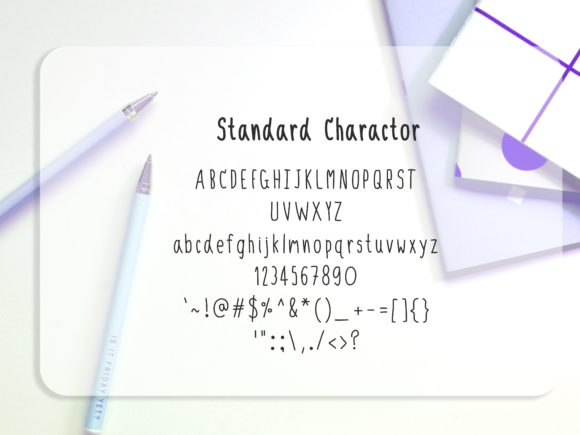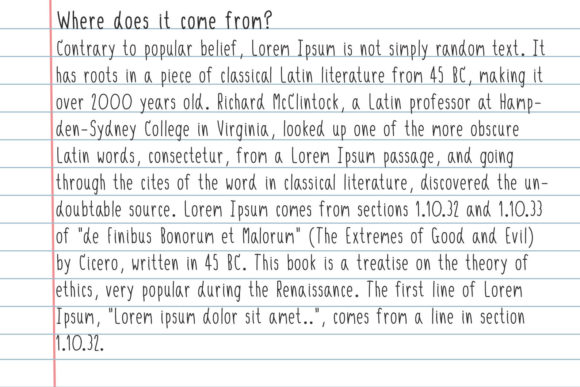
Introduction to Happy Tulip Font Font
Fonts play a crucial role in design, and the Happy Tulip Font font is a typeface that brings both character and versatility to any project. Whether you’re working on a branding project, a website, or a print design, the Happy Tulip Font font offers a unique style that can elevate your work.
| 📌 Font Name | Happy Tulip Font |
| 👤 Author | Malill&Design |
Happy Tulip is a cute and natural handwritten font.
Key Features of Happy Tulip Font Font
Why Choose Happy Tulip Font Font?
The Happy Tulip Font font is more than just a typeface – it’s a design tool that helps you communicate your message with style and clarity. Its unique character set and versatile design make it suitable for a wide range of applications, from elegant invitations to bold headlines.
With its carefully crafted letterforms and balanced proportions, the Happy Tulip Font font ensures readability and visual appeal across all mediums.
What makes Happy Tulip Font font special?
The Happy Tulip Font font stands out with its unique design, exceptional readability, and versatility across various design applications.